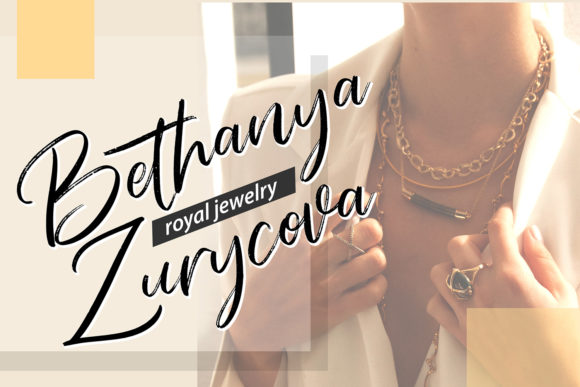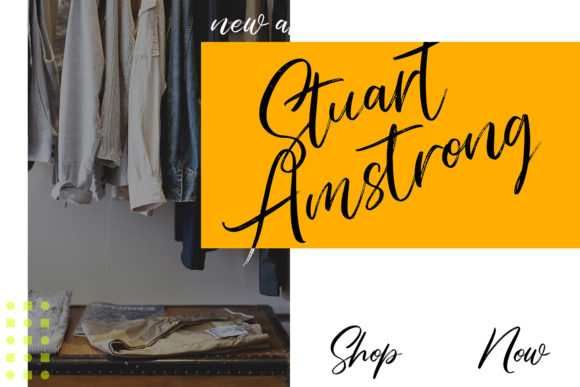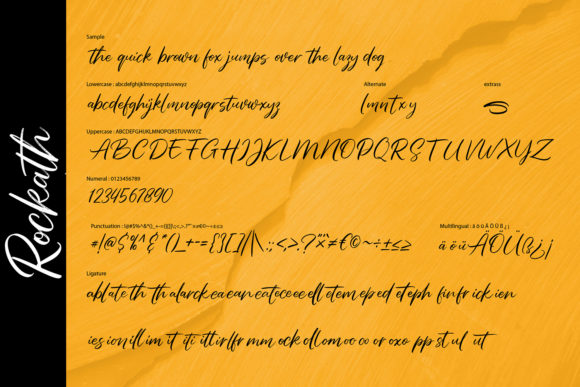
Introduction to Rockath Font
There’s something magical about finding the perfect font for a creative project. You’ve poured your heart and soul into designing a beautiful wedding invitation, and then, you stumble upon the one – a delicate, handwritten font that elevates your design to new heights. For many designers, this moment is pure bliss. And, for those who’ve discovered the Rockath Font, they know exactly what we’re talking about.
This stunning font is more than just a design resource – it’s a game-changer. With its high quality, transparent background, and effortless style, the Rockath Font is the perfect addition to any creative project. Whether you’re working on a wedding invitation, a thank you card, or a logo, this font is sure to add a touch of elegance and sophistication.
Key Features of Rockath Font
- High-quality, professional design for creative projects and presentations
- Transparent background for seamless integration with any design resource
- Optimized for print and digital use at 300 DPI resolution
- Unique, bold design with a mix of modern and classic elements
- Perfect for use in logos, branding, and other visual identity projects
Honest Review: Rockath Font
I recently came across the Rockath Font, and I must say it’s a great addition to any designer’s toolbox. As a design resource, it’s perfect for creative projects that require a unique touch.
- High-quality typography that’s both modern and elegant
- Translucent background options for added flexibility
- Works well for titles, headings, and body text
The Rockath Font is a versatile design element that can elevate any project. Whether you’re working on a personal or commercial project, this font is sure to impress.
- Not ideal for very large or complex text blocks
- Some users may find the font too minimalist for their taste
Overall, I’m thoroughly impressed with the Rockath Font. Its high quality and versatility make it a valuable design resource. I would highly recommend it to designers looking to add some flair to their creative projects.
Common Use Cases for Rockath Font
The Rockath Font is perfect for use in creative projects, such as graphic design, digital art, and branding. Its high-quality design and transparent background make it an ideal choice for designers looking for a versatile and professional font.